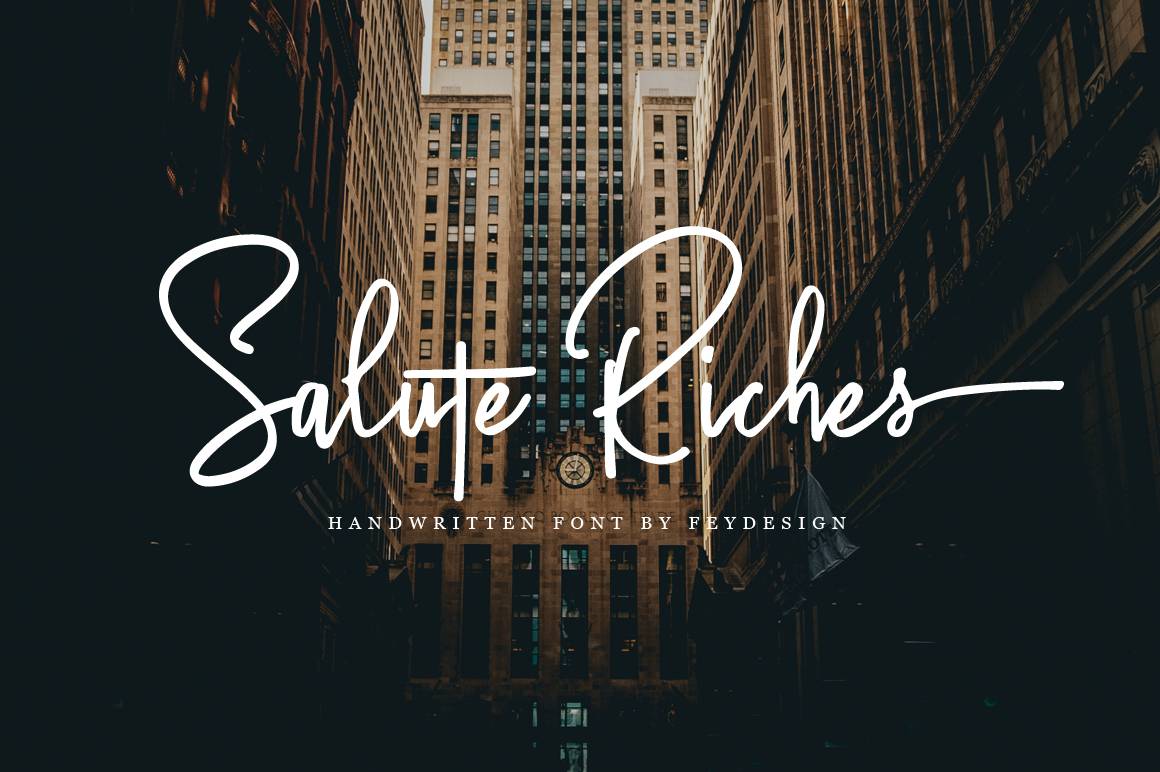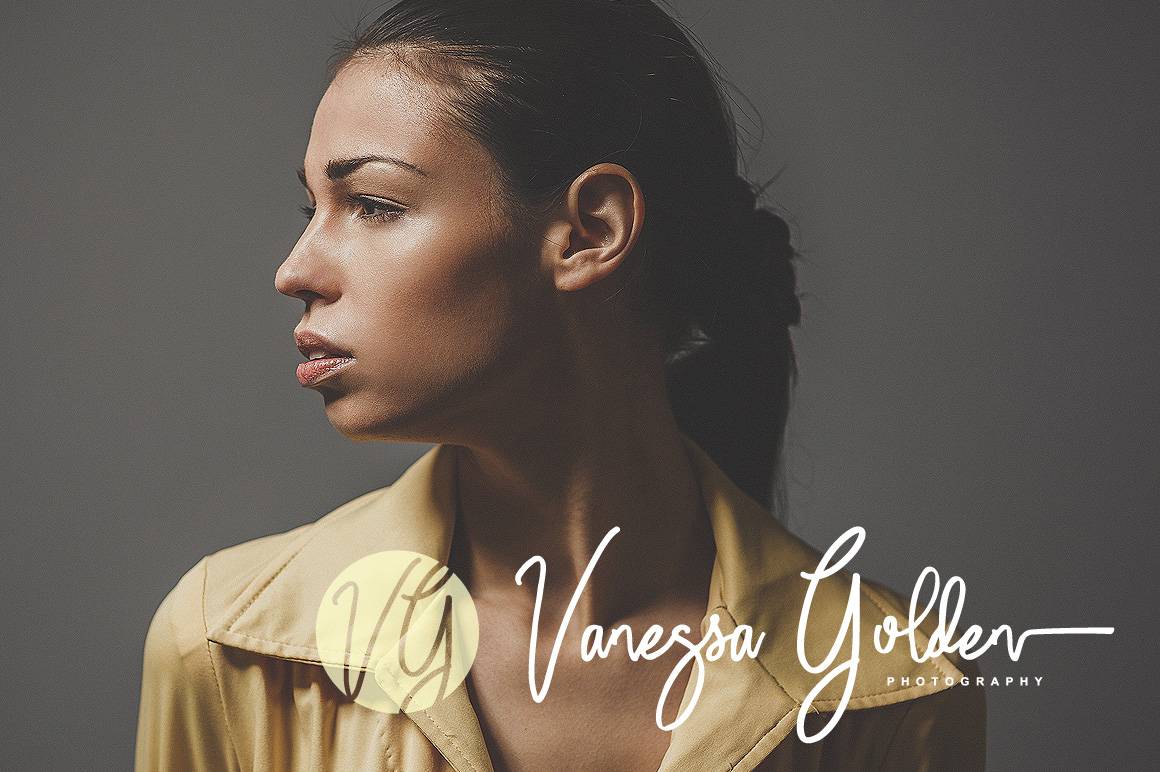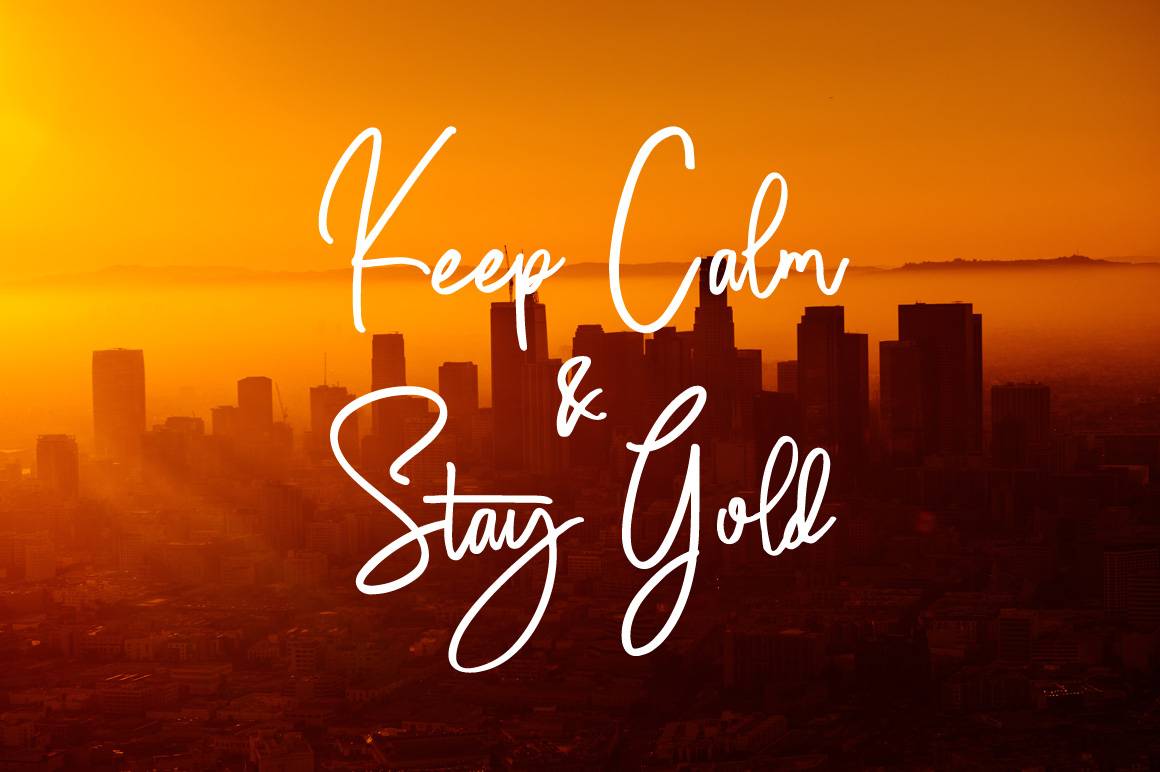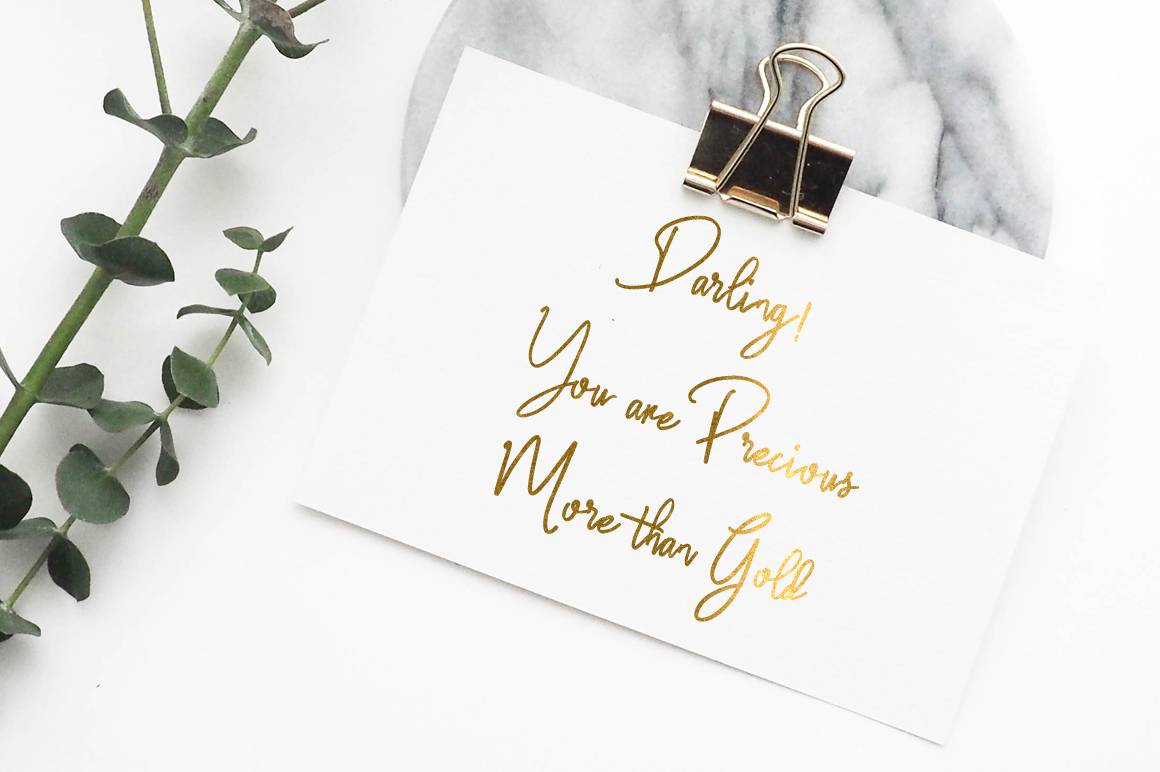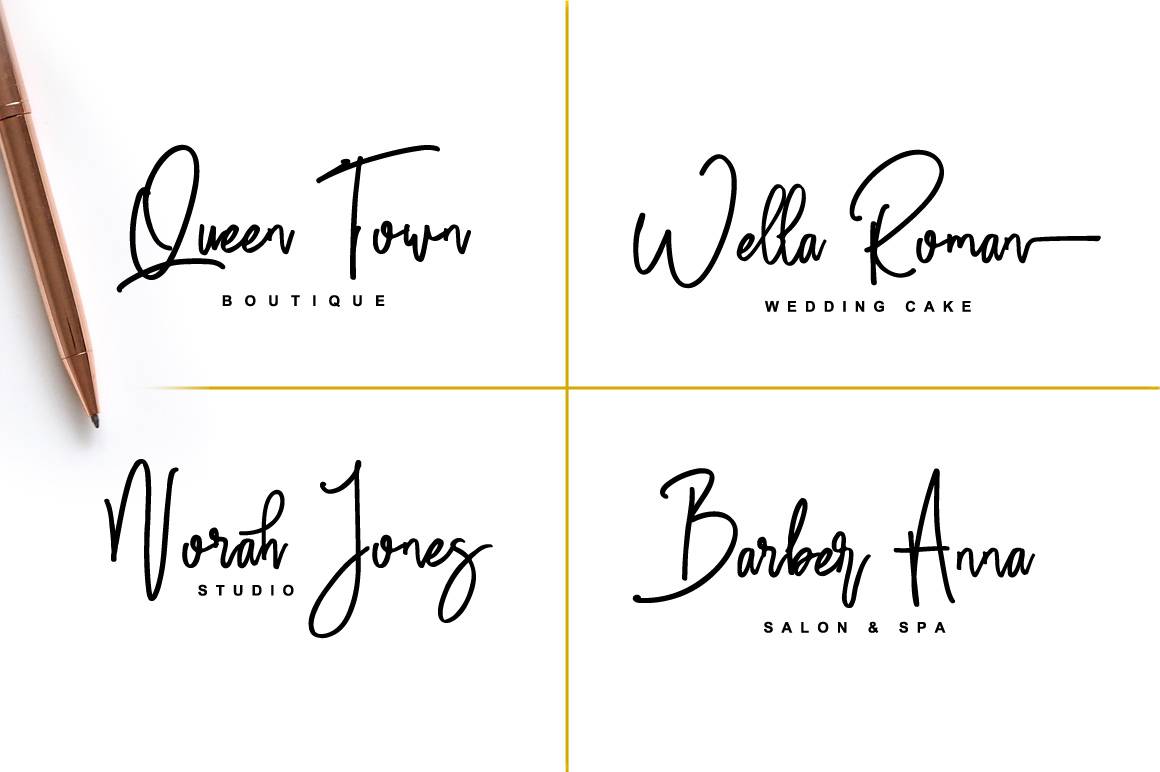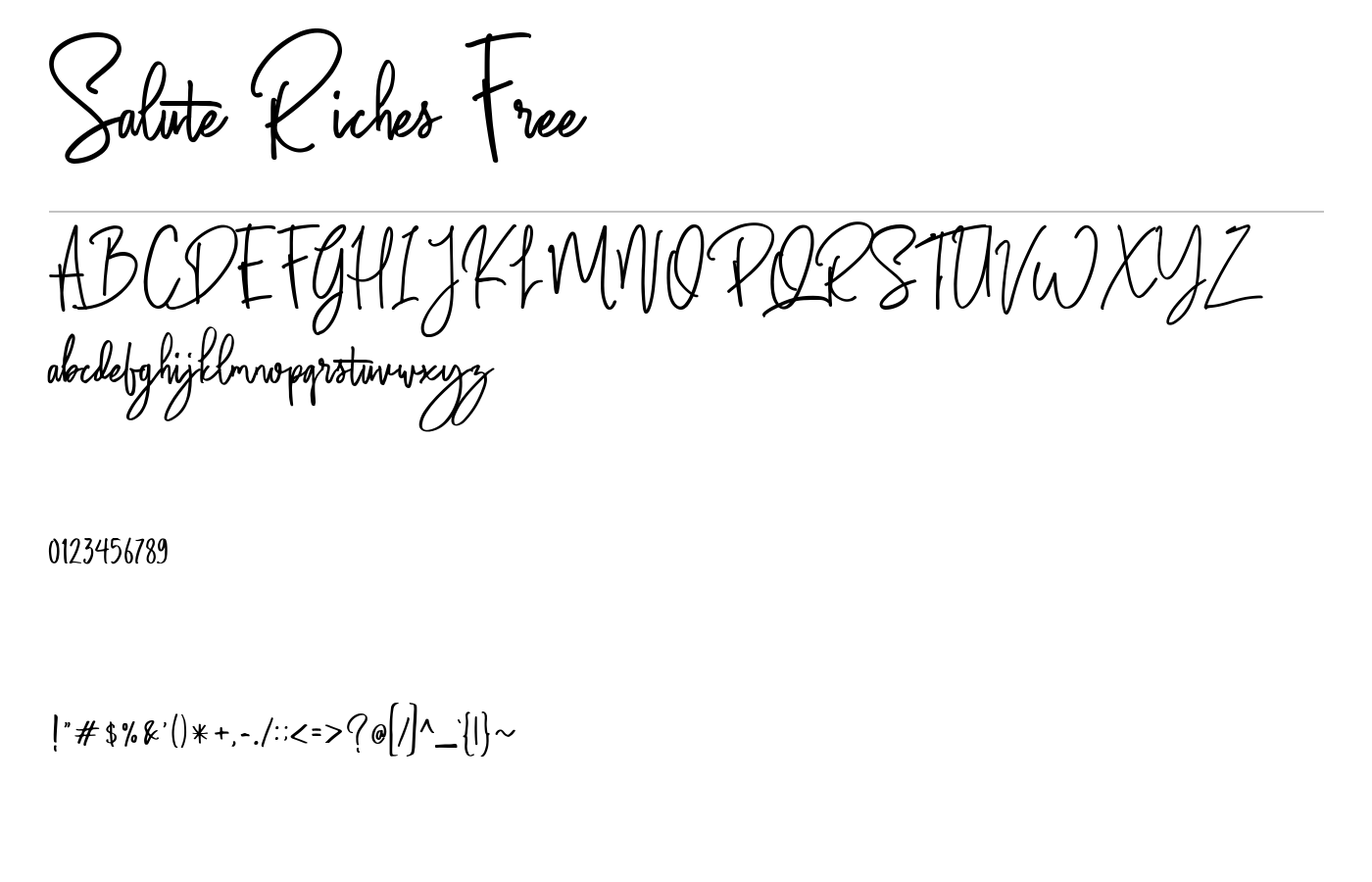
Salute Riches is a playful, handwritten script font with a light, airy feel and tall, slender letterforms that bring a personal, artistic touch. Its casual, flowing strokes and elegant loops work wonderfully for creative projects, invitations, and branding that seeks a friendly yet stylish vibe. This font shines best in headlines, logos, and decorative text where its unique charm can stand out.
Salute Riches Font
About Salute Riches Font
| Font family | Salute Riches Font |